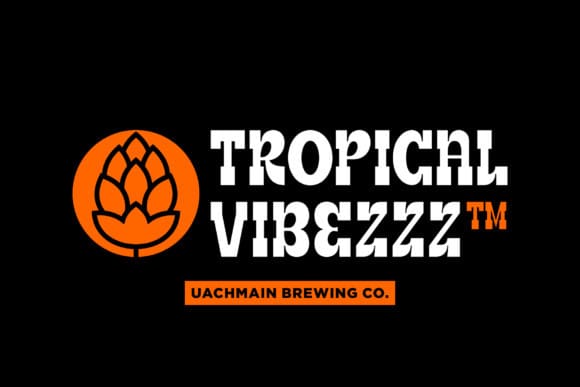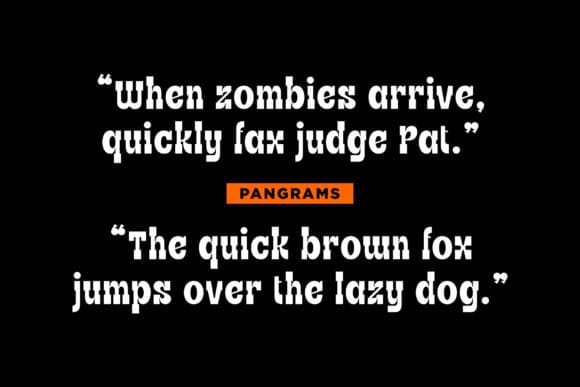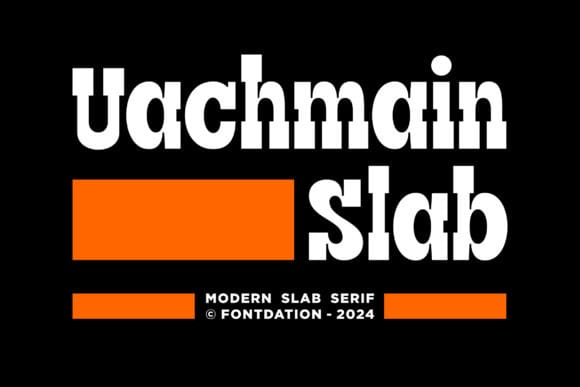
Uachmain Slab Font
Uachmain Slab Font is a modern slab serif font with a touch of vintage western style, inspired from the text that are used in western cowboy movies/comics. It is best suited for logos, branding, movie/game/apps title, food/beverage packaging, quote/poster designs and so much more.